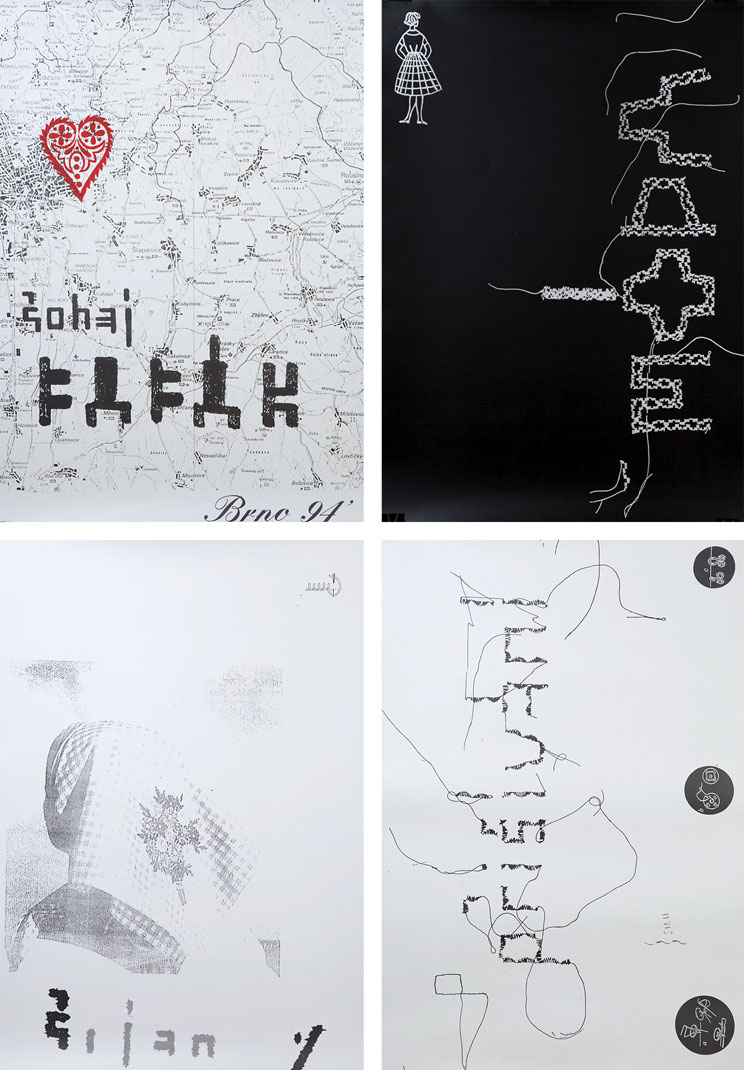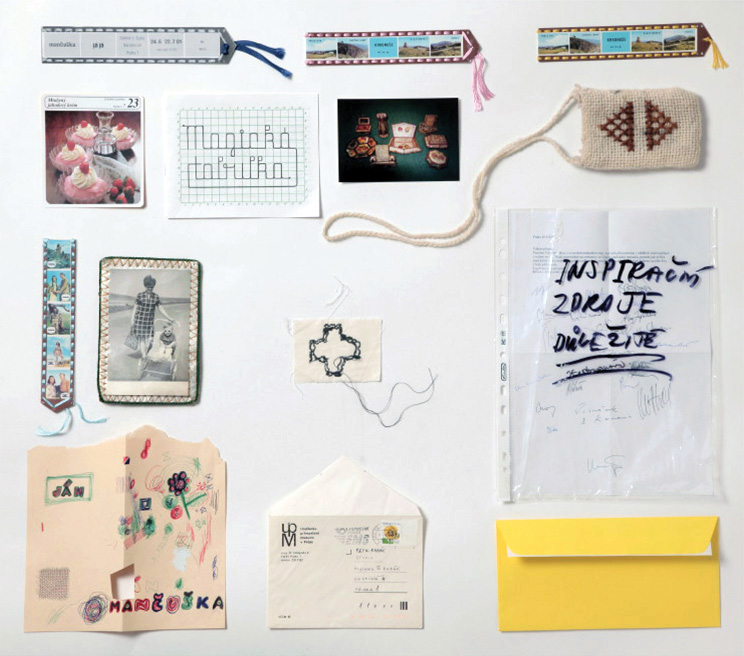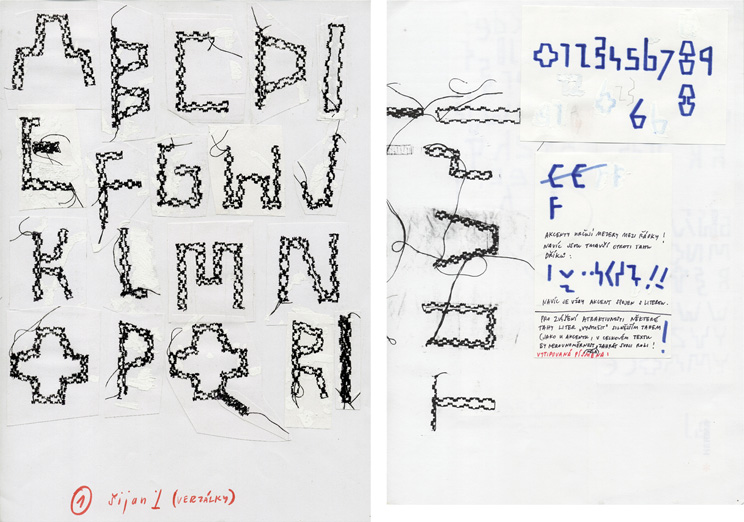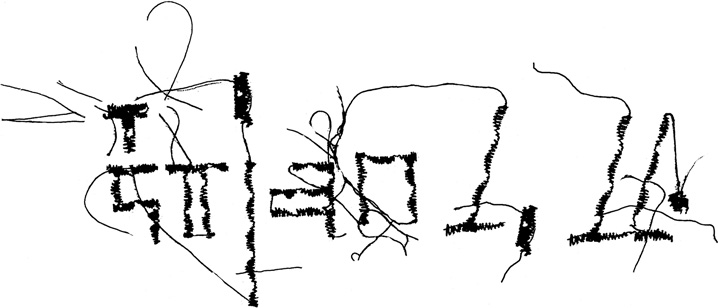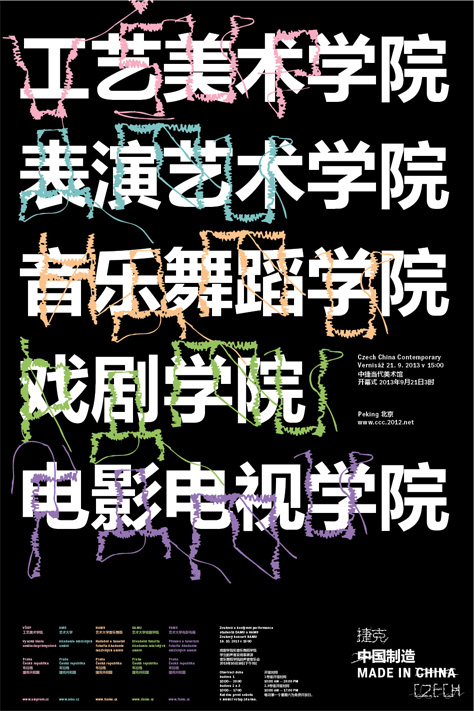
BC Sijan
Šijan is the third in a series of Petr Babák’s font creations, which were part of an experiment to find the limits of the Latin typeface and typeface legibility in the early nineties. Similarly to Petr’s Prkno and Řezan typefaces, Šijan found its use primarily in Tryskáč magazine. The concept for the font was simple: the character shapes, drawn by a pencil on a piece of cloth, were embroidered into the cloth by a professional seamstress using a Minerva brand sewing machine. This collaboration was successful and more than fruitful; some of the characters weren’t to the seamstress’ liking, so she redid them according to her taste.
Šohaj Babák, Móda, Šijan and Příšívání. A series of posters advertising an end of year exhibition of typefaces; designed by Petr Babák; 1994.
Inspiration materials for Prkno, Šijan, Trhan and Řezan.
Šijan retouching. Some of the characters weren’t to the seamstress’ liking, so she redid them according to her taste.
Let’s Sew; a practical handbook and significant source of inspiration for Petr Babák. Character shapes of the Šijan typeface were embroidered into the cloth by a professional seamstress using a Minerva brand sewing machine.
The Šijan II font came to life as a set together with Number One (sewn with a single stitch) in one afternoon. “Number Two was created on the impulse of the seamstress, who saw my enthusiasm for sewing, and showed me a double stitch. Hey presto, and we had Number Two,” explains Babák.
A poster, presenting Czech schools at an exhibition in Beijing; designed by Matěj Hanauer using the newly digitised Briefcase Šijan font; 2013.
Design: Petr Babák